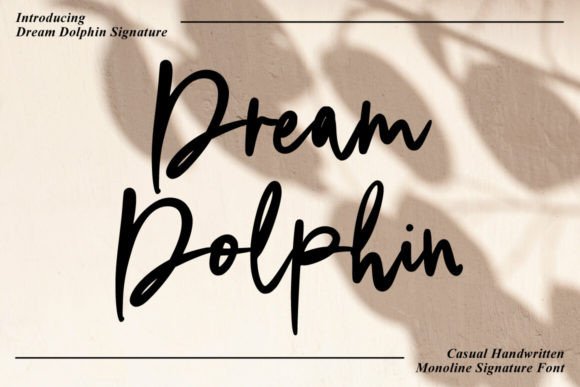
Dive into the world of Dream Dolphin Font, a captivating script font that will add a touch of elegance and charm to your creative endeavors. Its meticulously crafted characters, reminiscent of a handwritten signature, dance across the page with a graceful fluidity that is sure to leave a lasting impression.
With its decorative elements and playful baseline, Dream Dolphin Font exudes a sense of joy and whimsy, making it the perfect choice for adding a personal touch to your designs. Imagine your words taking on a life of their own, flowing effortlessly from one letter to the next, creating a visual masterpiece that will captivate your audience.
Whether you're designing wedding invitations, greeting cards, branding materials, business cards, or eye-catching posters, Dream Dolphin Font will elevate your work to new heights. Its versatility knows no bounds, allowing you to experiment with different styles and create designs that are uniquely yours.
Step into the enchanting world of Dream Dolphin Font and unleash your creativity. Let your imagination soar as you explore the endless possibilities that await you with this extraordinary font. From heartfelt messages to powerful statements, Dream Dolphin Font will transform your words into works of art.
So, embark on this creative journey with Dream Dolphin Font and let your imagination run wild. Experience the joy of creating designs that resonate with your audience and leave a lasting impression. Dive in and discover the magic that awaits!